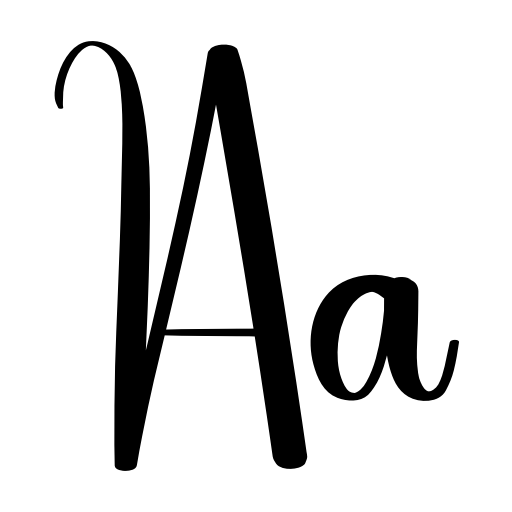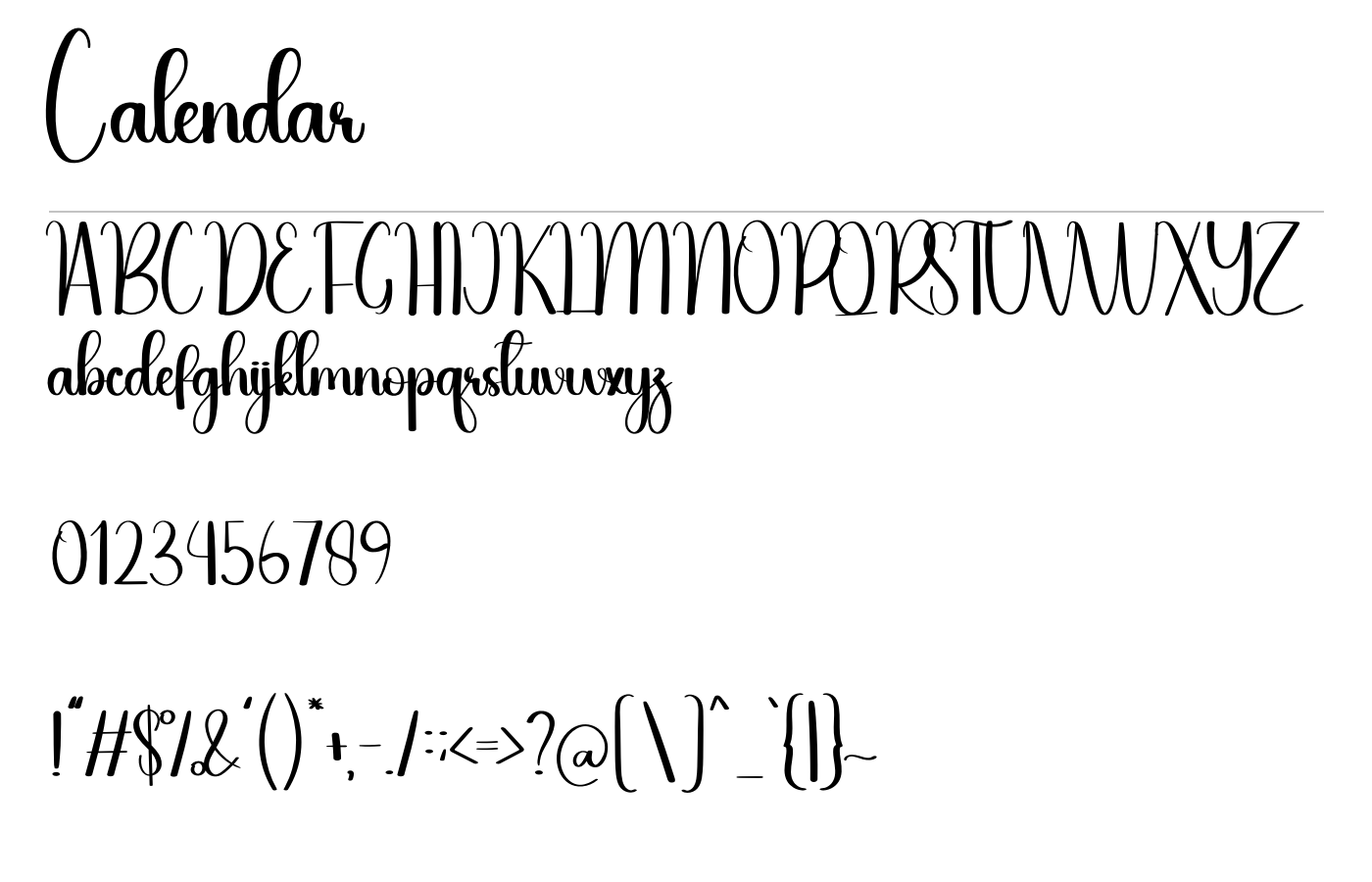
Calendar Font is a playful and elegant script typeface with a hand-drawn feel, featuring tall, slender letterforms and flowing strokes that combine both upright and slightly whimsical curves. This font’s light weight and smooth lines make it ideal for creative, friendly designs such as invitations, branding for lifestyle or fashion products, and greeting cards where a personal, stylish touch is desired. Its distinctive, artistic look works best in headlines and logos rather than lengthy body text, adding charm and sophistication to any project.
Calendar Font